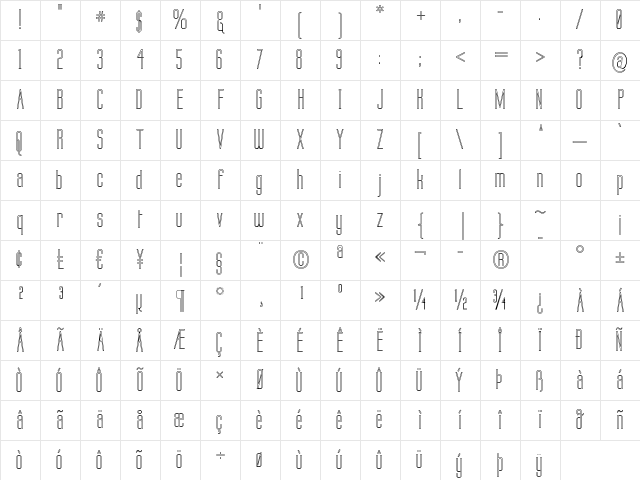
Labtop Outline Regular
Design Context for Labtop Outline
Labtop Outline is built around its visual character rather than neutral utility - its distinctive forms are designed to make an impression at display sizes.
Font Pairing: Pair with a clean neutral sans-serif for body copy to let Labtop Outline's character lead without overwhelming the composition.
Pro Tip: Use Labtop Outline exclusively at display sizes - it was designed to be seen, not read at length. Let a neutral companion handle body copy.